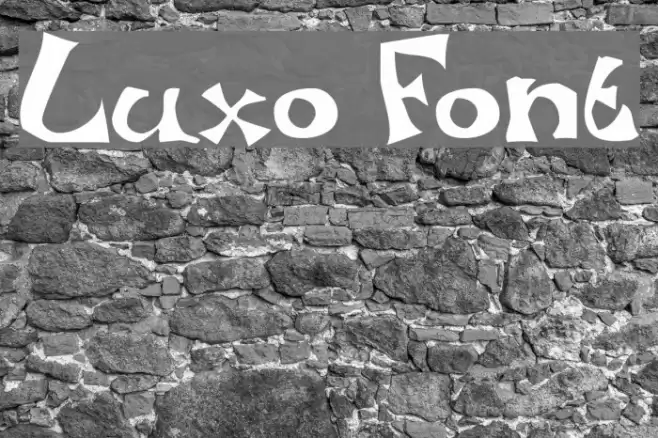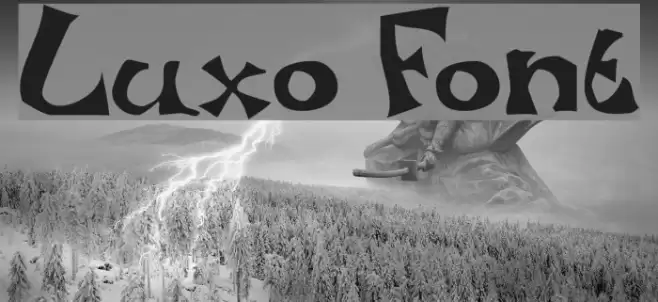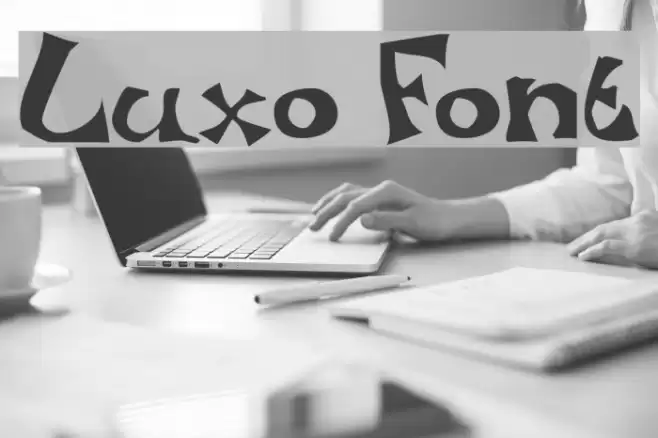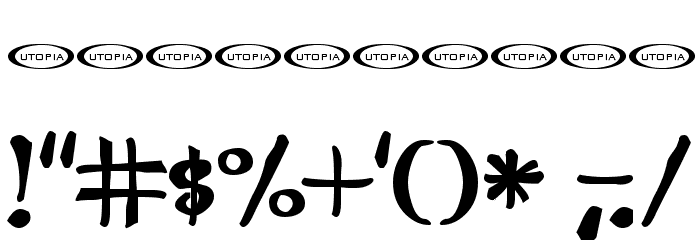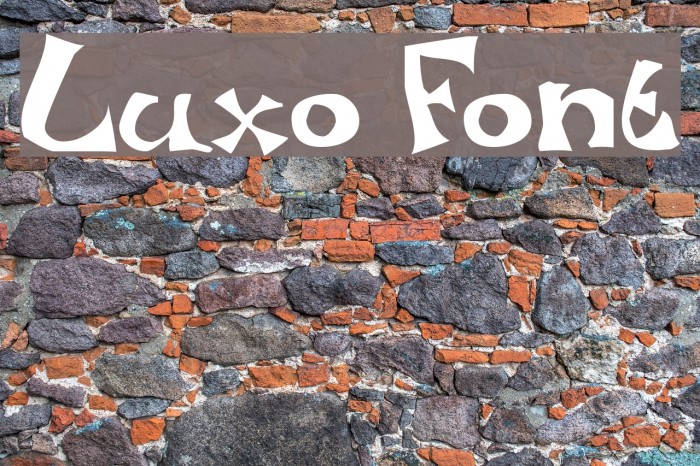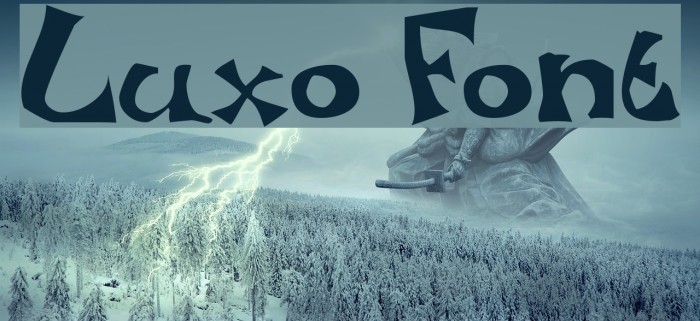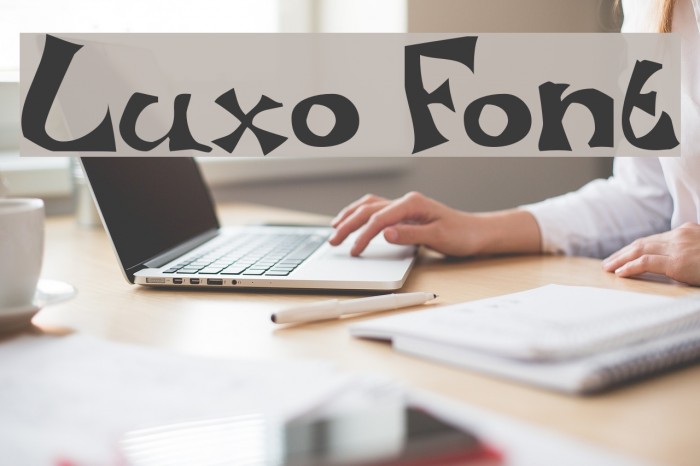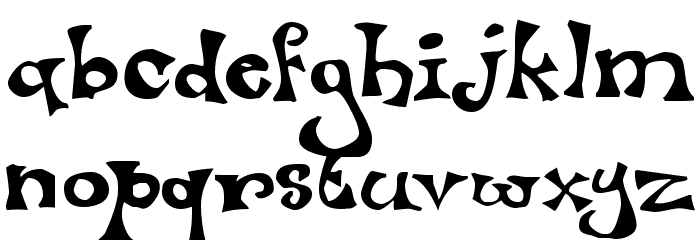
Luxo Font
Luxo Description
This font features a whimsical and playful design with exaggerated curves and varying stroke widths, creating a dynamic and lively appearance. The uppercase letters are bold and commanding, while the lowercase letters maintain a quirky charm. The numbers and special characters follow the same playful style, making them stand out. The overall look is reminiscent of a fantasy or storybook theme, with a touch of elegance and creativity. This font is perfect for projects that require a unique and eye-catching typeface.
A whimsical and playful font with exaggerated curves and dynamic strokes from Kids fonts.
- Proposed Projects: Ideal for children's books, fantasy-themed designs, playful branding, and creative posters.